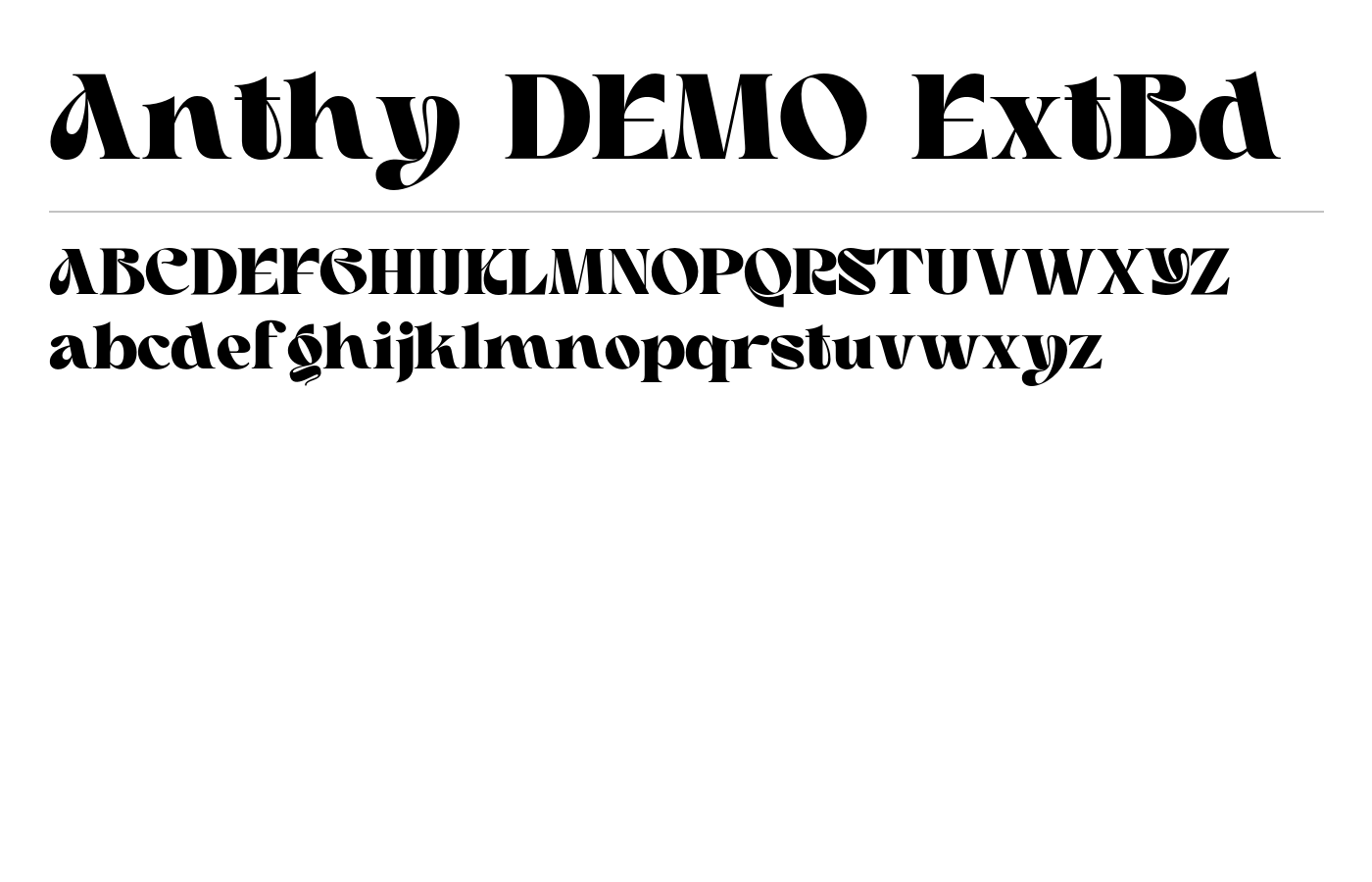
Anthy DEMO is a bold serif font with a modern, artistic twist, featuring high contrast between thick and thin strokes and unique, stylized letterforms that add a distinctive flair. Its strong presence and elegant curves make it ideal for headlines, logos, and branding projects seeking a contemporary yet sophisticated look. This font works best in creative and fashion-forward contexts where visual impact and individuality are key.
Anthy DEMO Font
About Anthy DEMO Font
| Designer | Jamaludin Ahmad Sahestya Dharma |